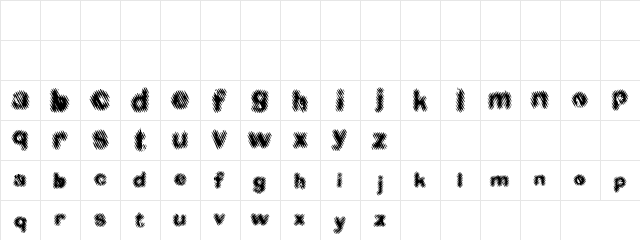
Cute Fx Regular
Design Context for Cute Fx Typeface
Cute Fx is a composed and adaptable typeface that performs quietly and consistently across a wide range of design contexts.